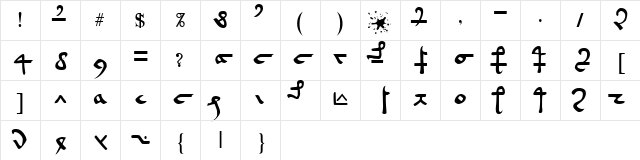
Voynich Frogguy Hand A flows with the natural rhythm of handwritten lettering, making it ideal for designs that call for warmth and personal expression.
Font Pairing: Combine Voynich Frogguy Hand A with a simple geometric sans for maximum contrast - the tension between flowing curves and clean structure is a classic typographic pairing.
Pro Tip: Use Voynich Frogguy Hand A for short runs of text - names, titles, or taglines. Extended body copy in script faces tires the eye quickly.